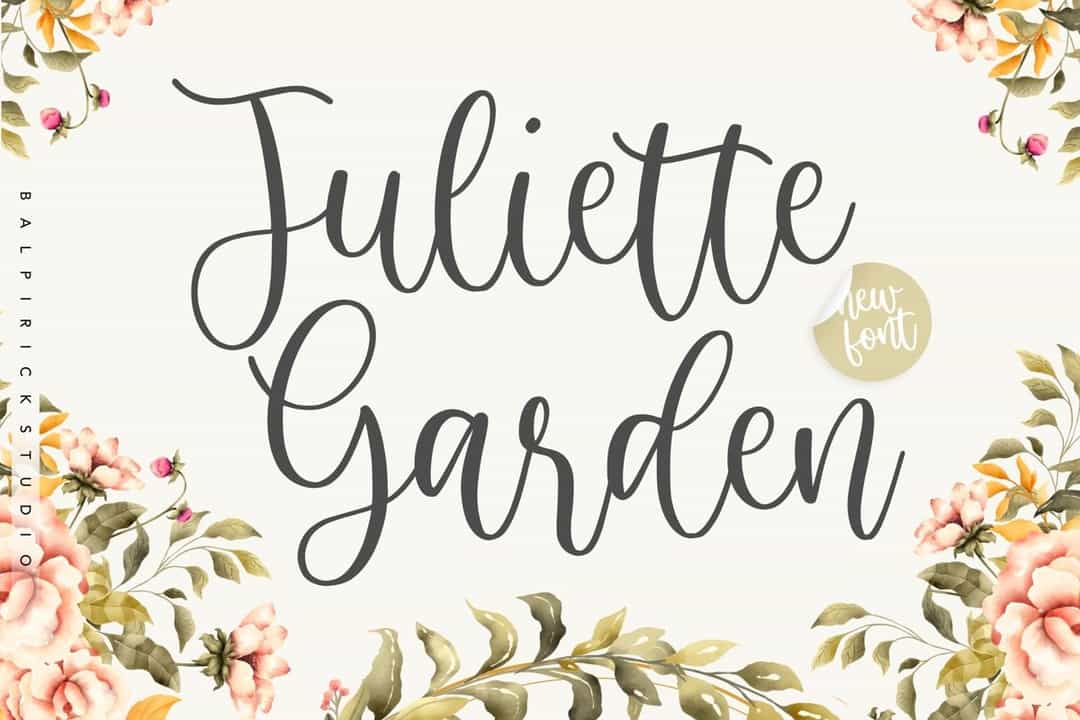
Juliette Garden is a modern script calligraphy font that is ideal for the packaging of goods, branding of a new product, magazine, or wedding invitations, social networks, or any other work that requires writing text over the background.